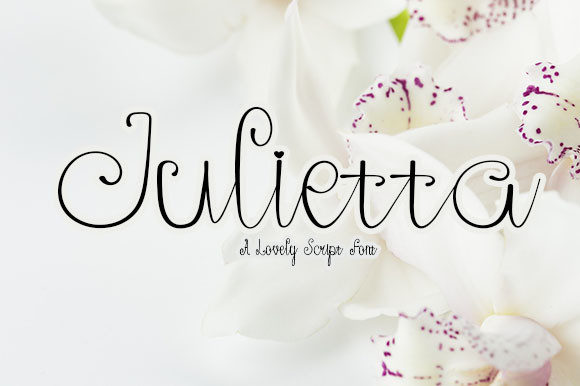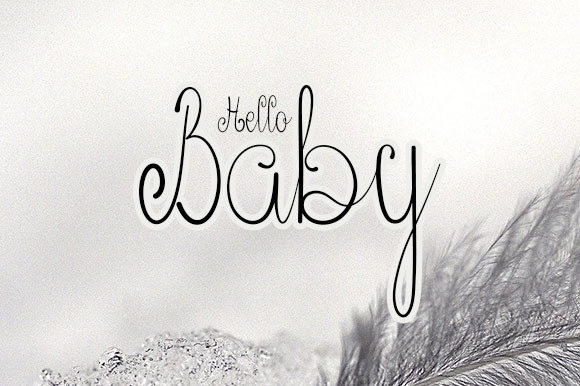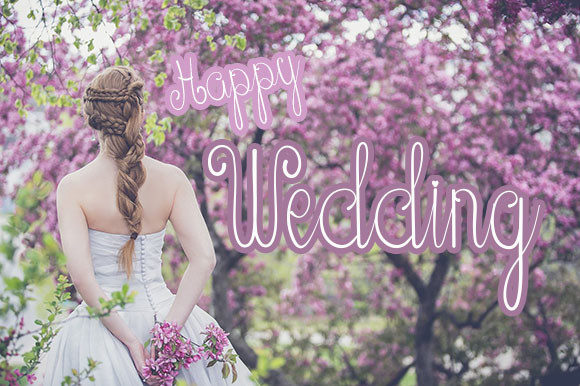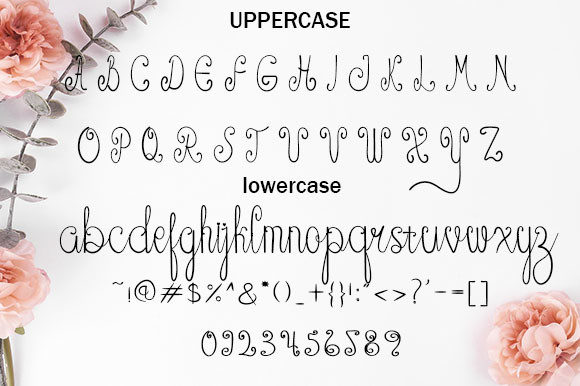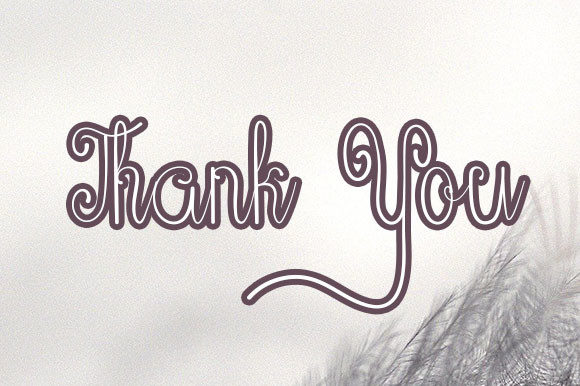
Julietta Font
About Julietta Font
Julietta is a thin, dainty and whimsical handwritten font. Fall in love with its incredibly versatile style and use it to create gorgeous wedding invitations, beautiful stationary art, eye-catching social media posts, and much more!